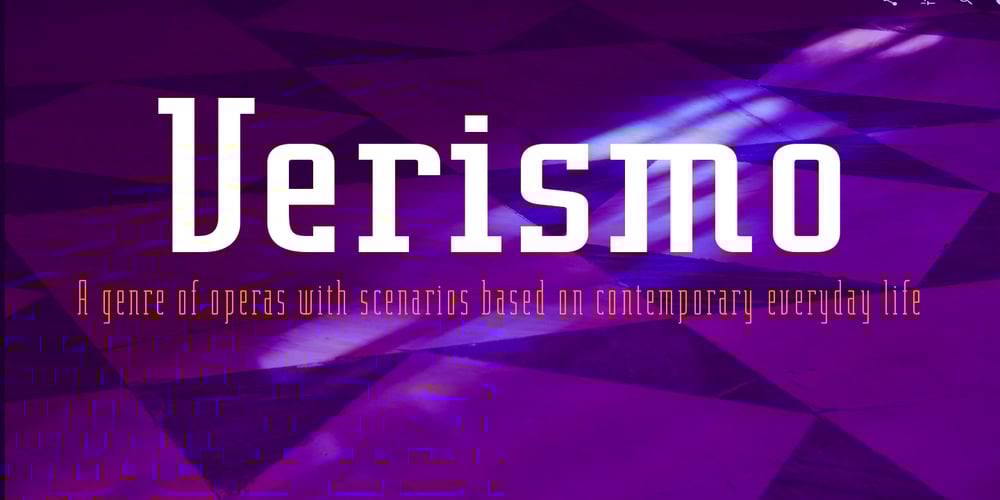
Verismo Font Family was designed by Martin Verstraaten and published by Martin Verstraaten. Verismo contains 12 styles and family package options. Verismo (Italian for ‘realism’, from vero, meaning ‘true’) is a genre of operas with scenarios based on contemporary everyday life. This font is inspired by old school sign painting techniques. In addition, the font has a contemporary look and can therefore be used in many different designs.